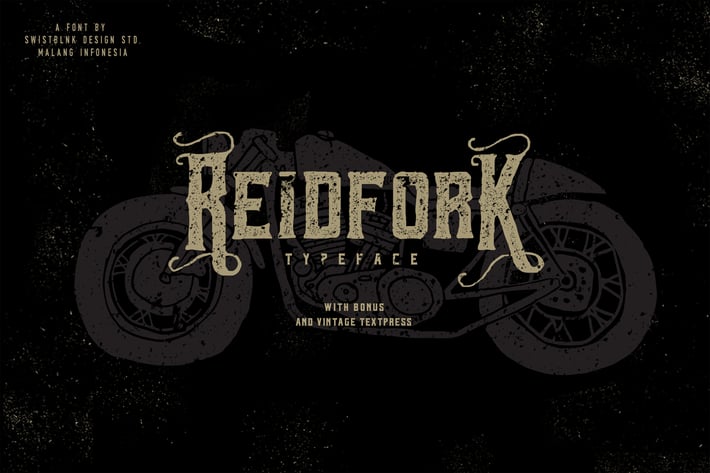
Reidfork Typeface + Textpress
swistblnk
Reidfork Typeface with Bonus Vector and Vintage Textpress
Reidfork Typeface is another carefully hand-made font crafted with passion and love :) You can use this font as creative as you want. Just imagine and touch the sky and you can check some work on my Instagram With bonus vector pack from our Vintage Hand Drawn Style Logos And Badges.
Reidfork Regular
Reidfork Handdrawn
Reidfork Handdrawn Rough